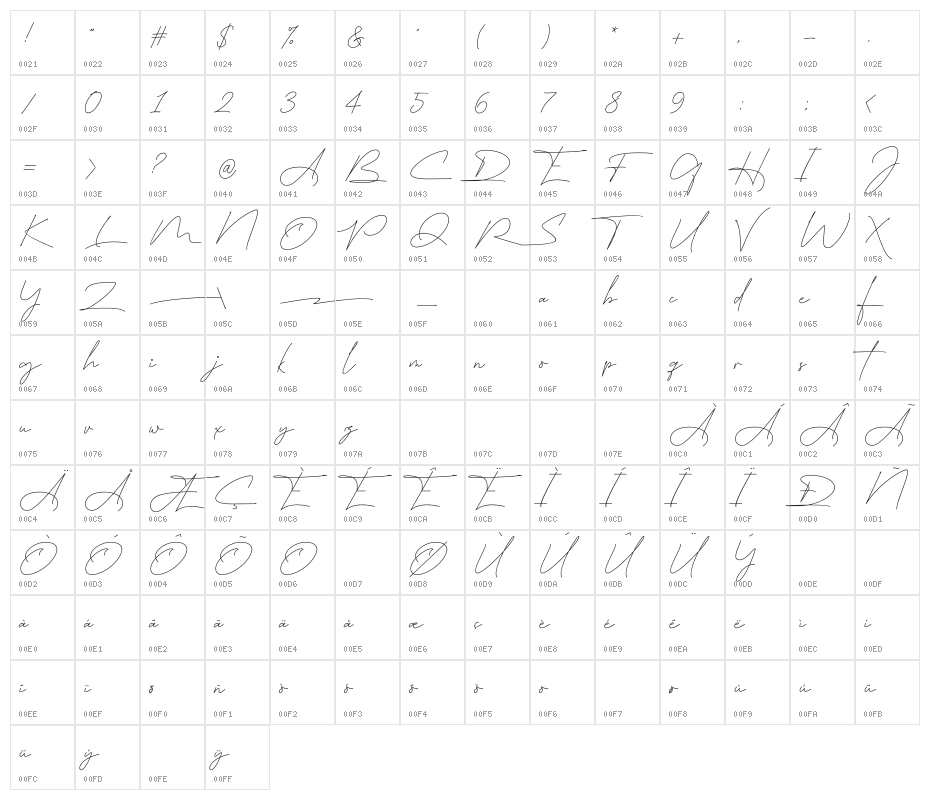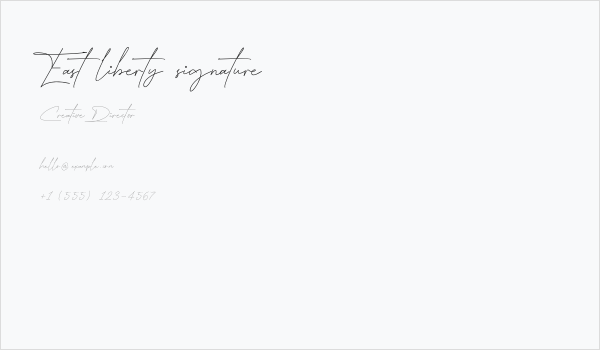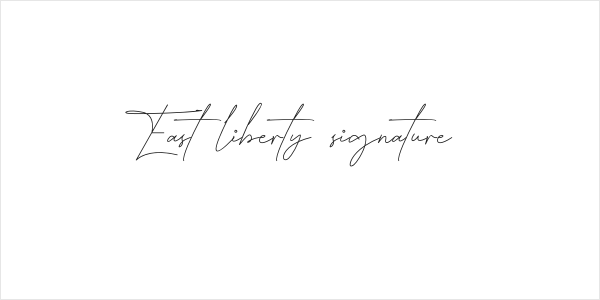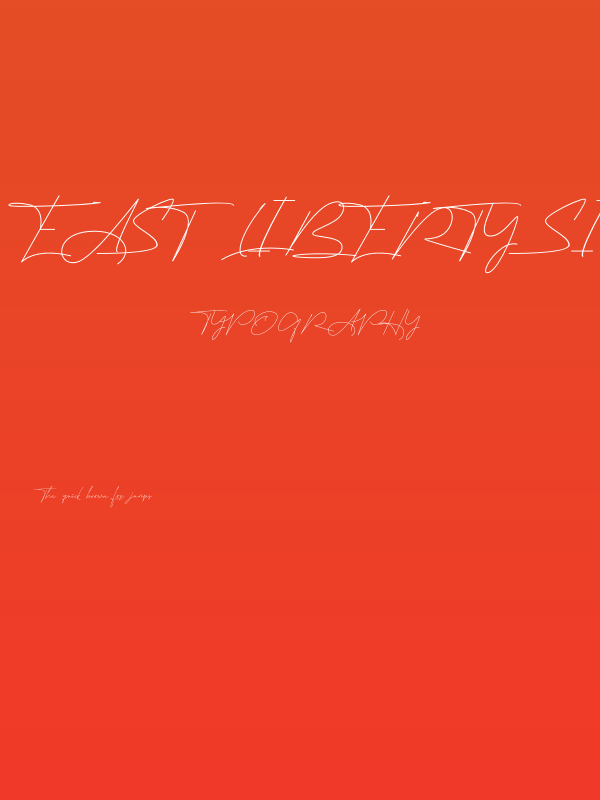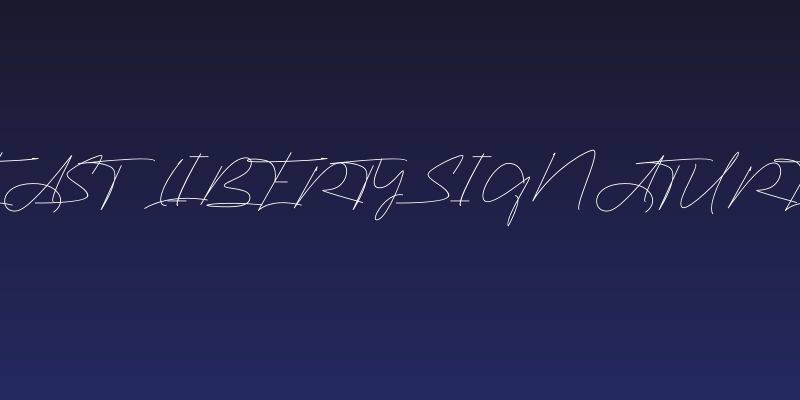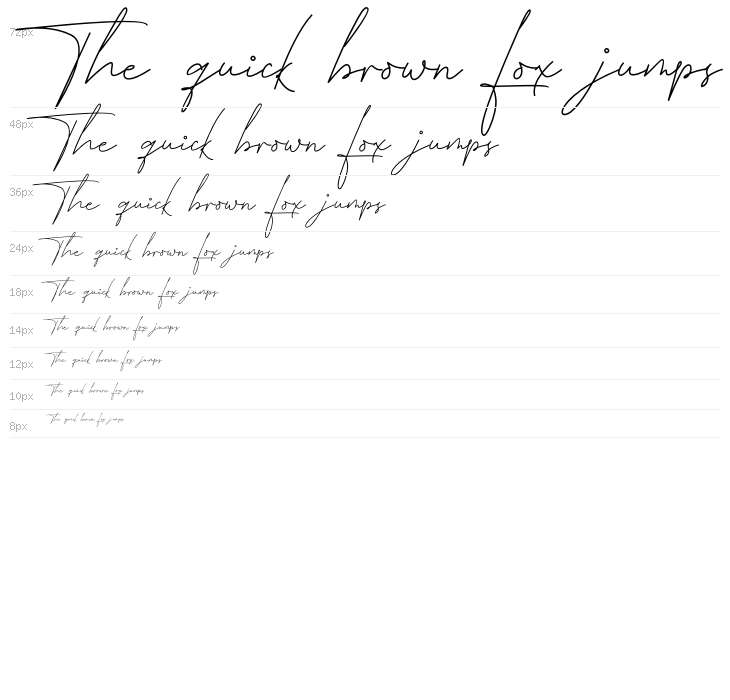
East liberty signature Font
This font exudes a sophisticated and elegant handwritten style, characterized by its flowing cursive script. The uppercase letters are elongated and graceful, with a slight slant that adds to the fluidity of the design. Lowercase letters maintain a consistent style, featuring smooth, connected strokes that mimic natural handwriting. The numerals are clear and legible, maintaining the same cursive flair. Special characters are thoughtfully designed to blend seamlessly with the overall aesthetic. This font's delicate lines and artistic flair make it ideal for projects that require a personal touch.
Overall StyleElegant, Artistic
Use CaseLogos, Invitations, Personal Branding
Proposed ProjectsIdeal for wedding invitations, personal branding, greeting cards, and elegant logos.